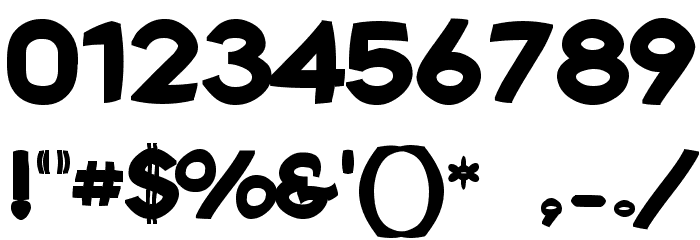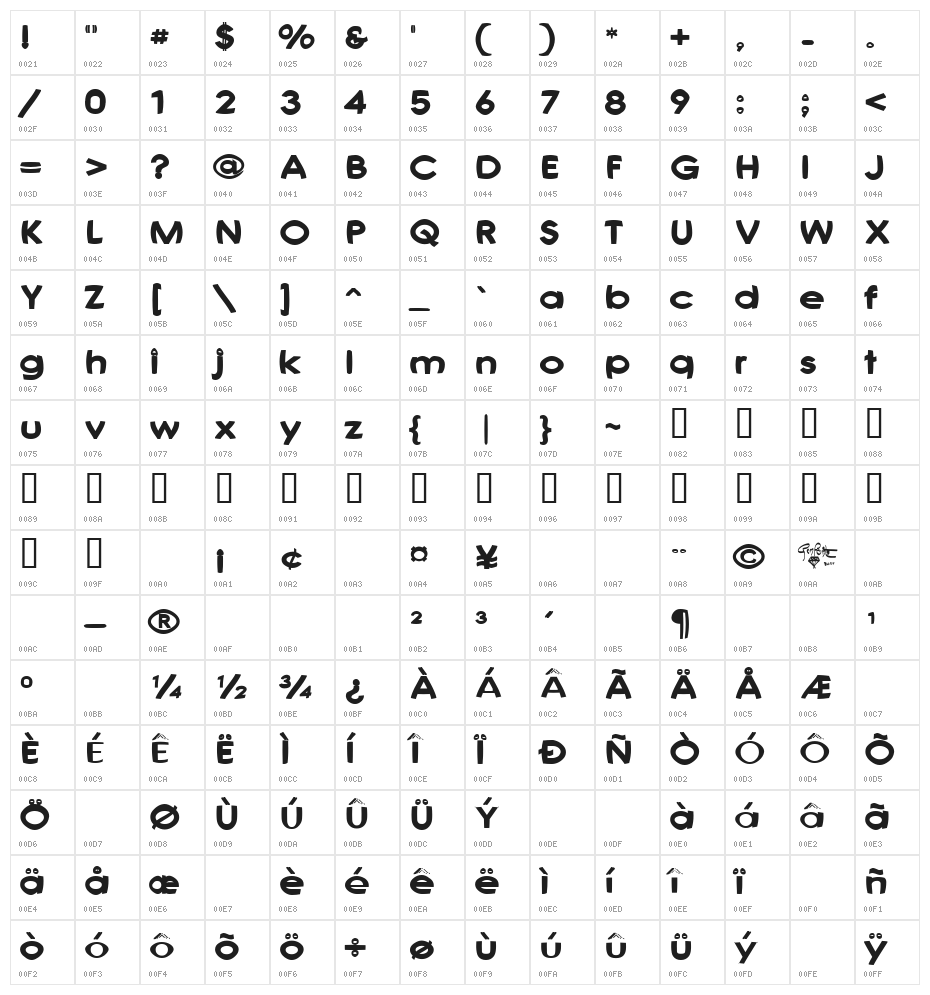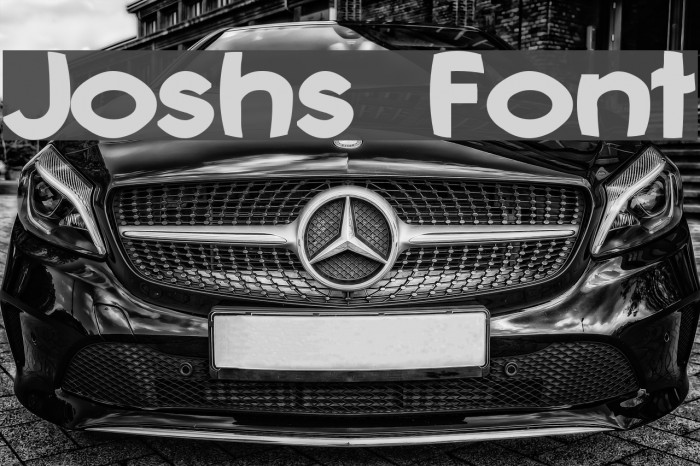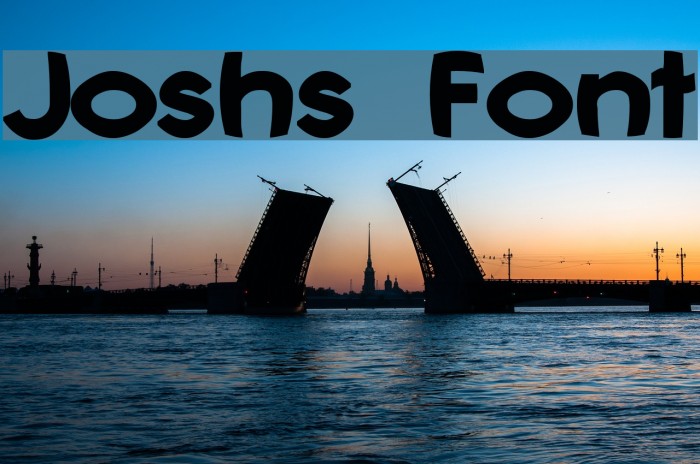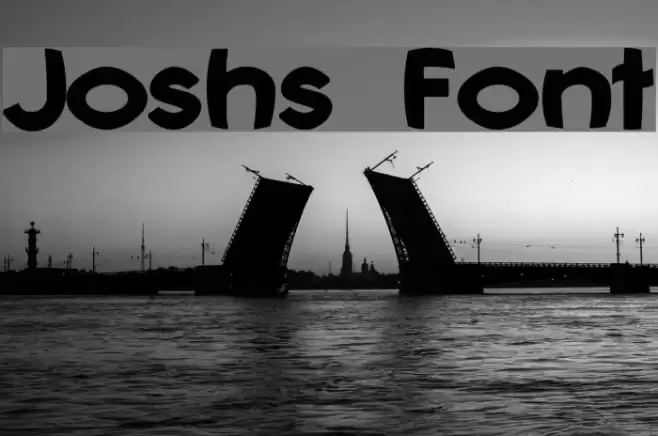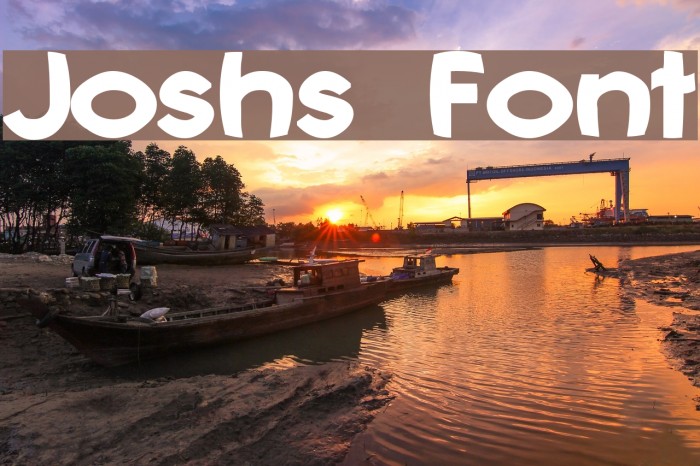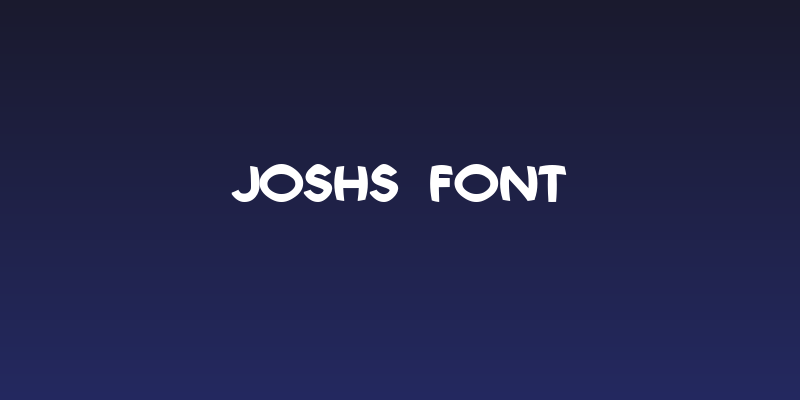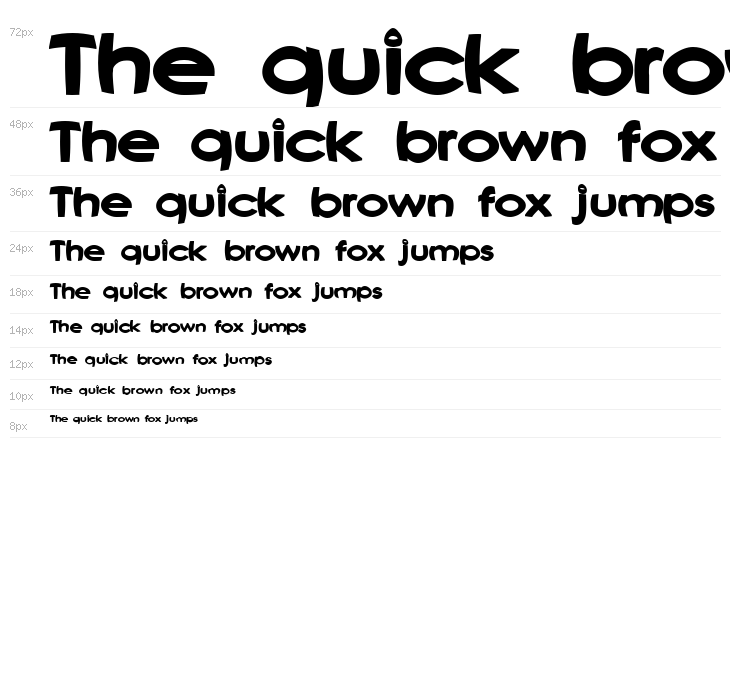
Joshs Font Font
Joshs Font Description
This font features a playful and bold design with rounded edges and a slightly irregular shape, giving it a whimsical and friendly appearance. The uppercase and lowercase letters maintain a consistent style, with a noticeable thickness that adds to its boldness. The numbers and special characters are designed to match the overall playful aesthetic, making them easily recognizable and visually appealing. The font's unique style makes it stand out, while still being legible and versatile for various design needs.
| Proposed Projects | Ideal for children's books, playful branding, posters, and creative projects that require a fun and approachable look. |